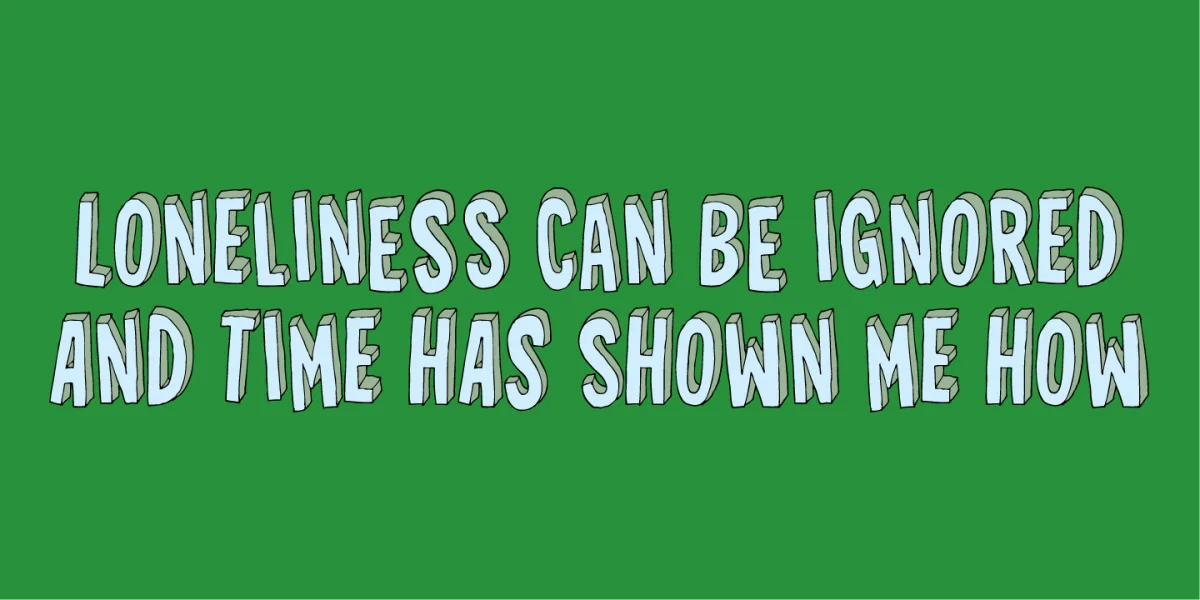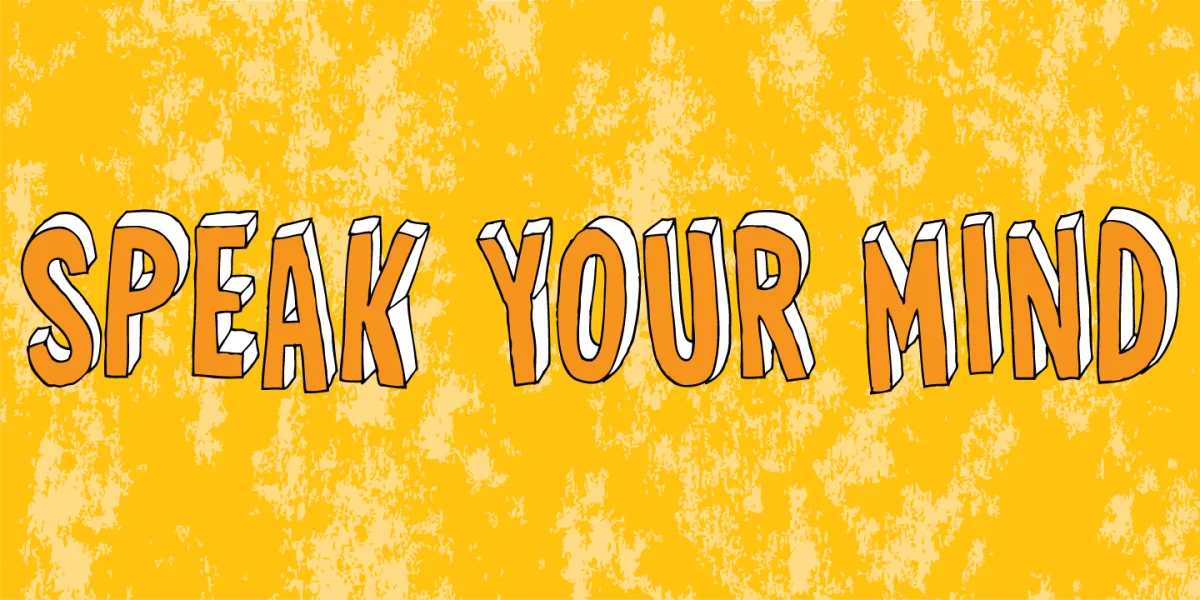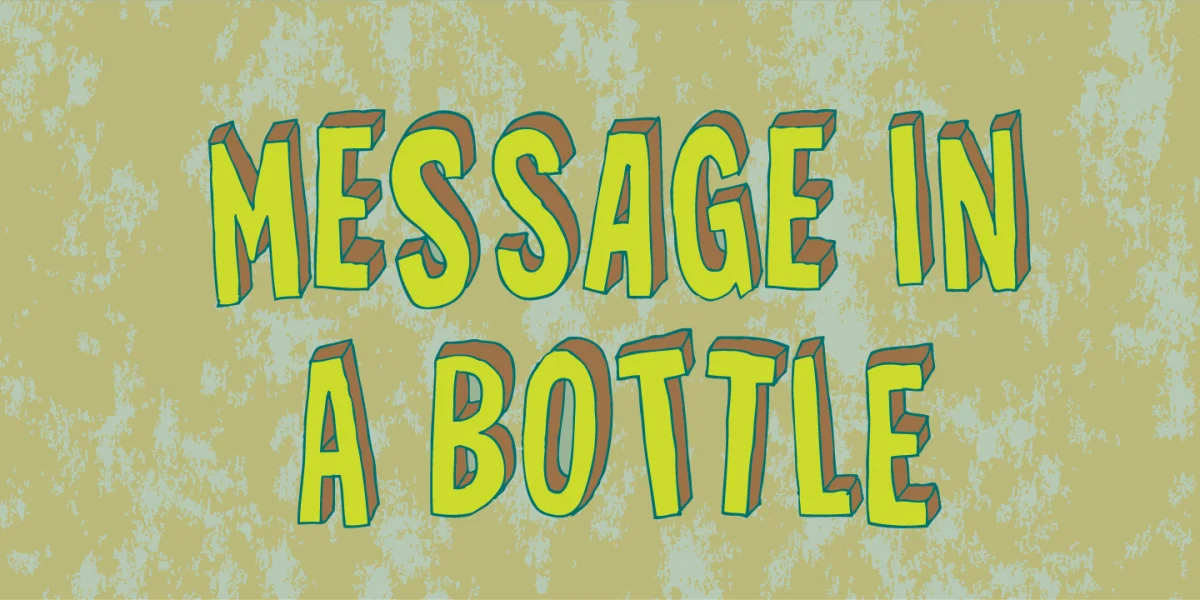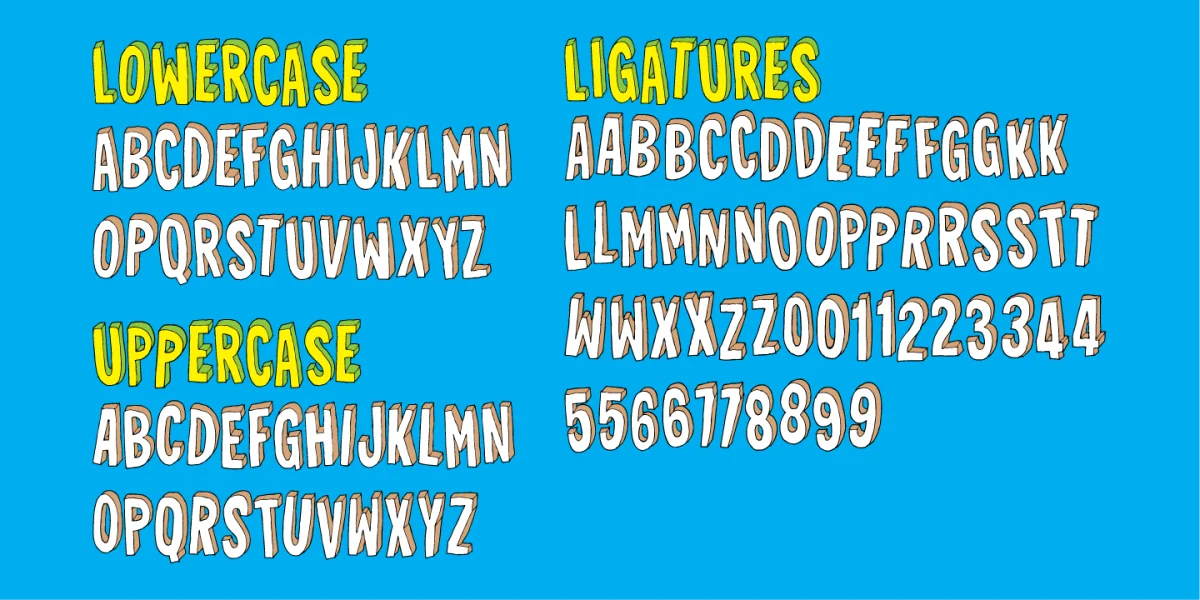
This 3D lettering font was done with my inky ballpoint pen. The shareware version comes with ligatures for double lettering and alternate letters in upper- and lowercase.